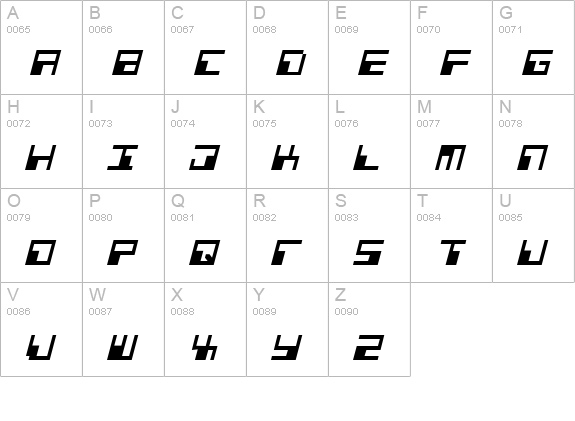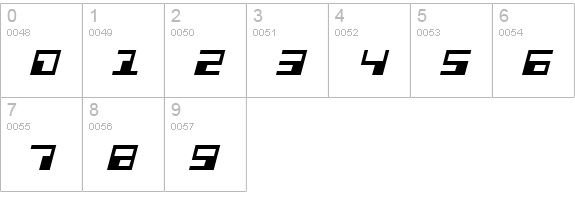
Phaser Bank Italic is a distinctive, italic variant in the Phaser typeface family \xE2\x80\x94 well suited to design and typography projects.
Introducing Phaser Bank Italic font, a sleek and modern typeface that exudes sophistication and creativity. With its elegant italic style and unique design, Phaser Bank is perfect for adding a touch of class to any project. This versatile font is ideal for branding, advertising, and more, making it a must-have for designers looking to make a bold statement. And the best part? Phaser Bank Italic font is completely free to download at FontsMarket.com! Don't miss out on this amazing opportunity to enhance your designs with this stunning typeface. Download Phaser Bank Italic today and elevate your creations to the next level.